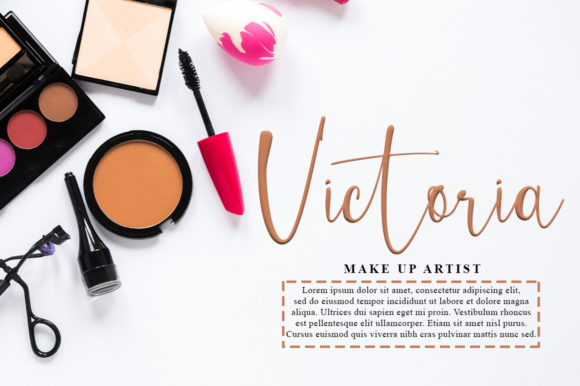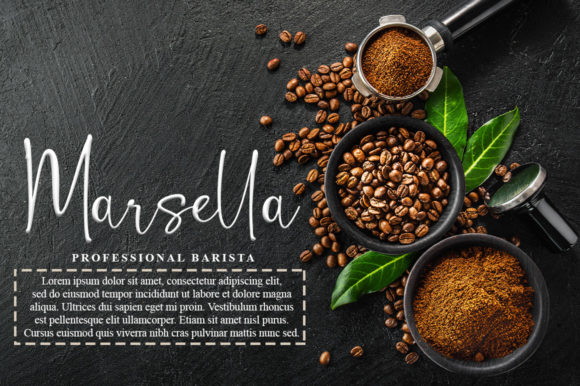
About Martallio Font
Martallio is a beautiful script font. Its subtle style will give an elegant and modern look to any of your creative projects such as logos, branding, invitations, wedding designs, social media posts, business cards, greeting cards, wall art and more. This font will turn any creative idea into a true work of art!